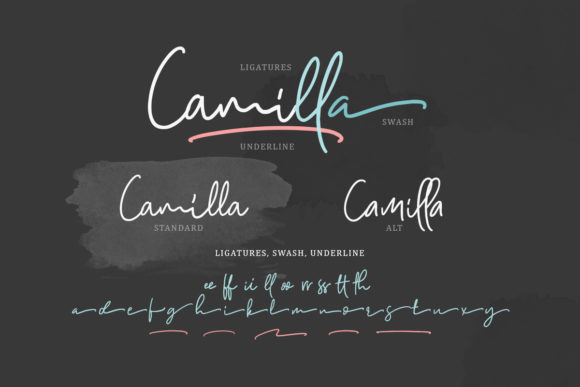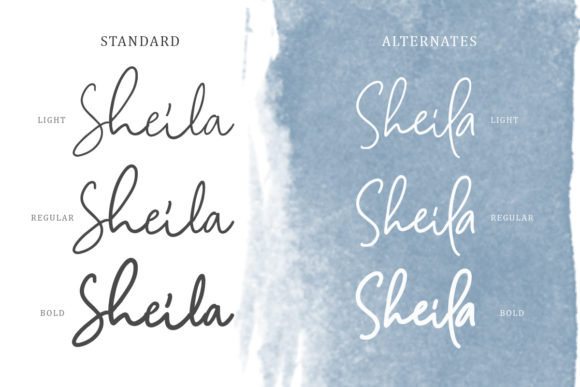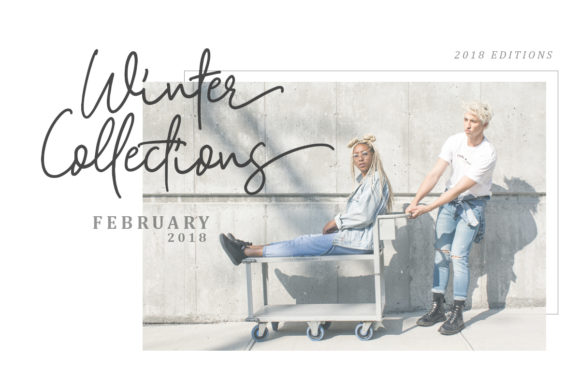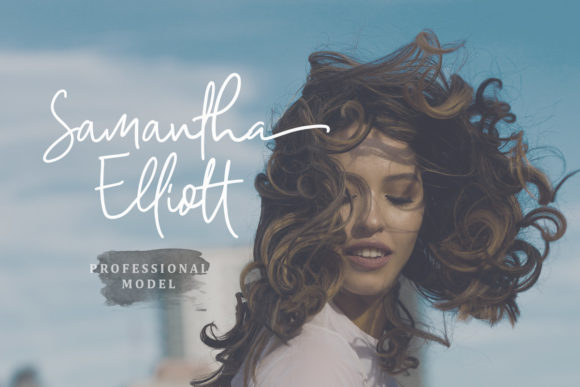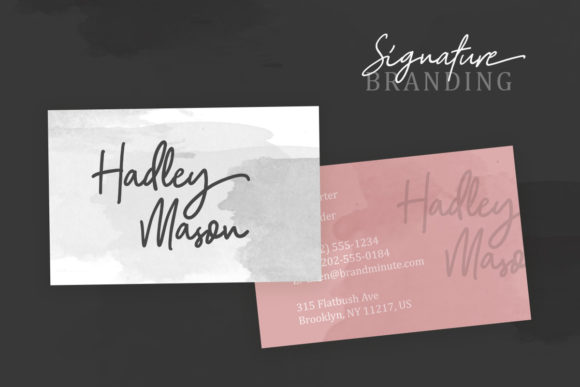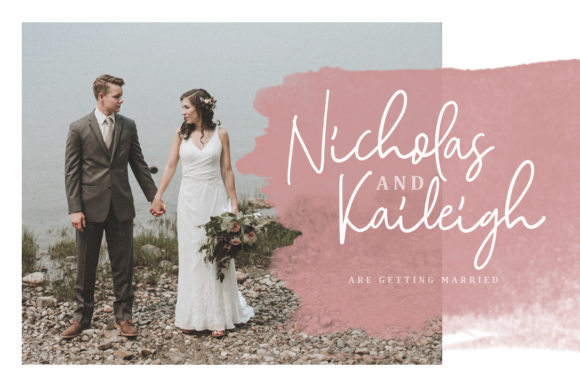
Introducing the Camilla Family Font: Elevate Your Designs with Modern Script Elegance
In the world of typography, a font can make all the difference in the success of a design project. For designers and crafters seeking a modern script family that exudes elegance and versatility, look no further than the Camilla Family Font. This stunning font family consists of six styles that can be combined perfectly, making it an ideal choice for a wide range of applications, from logos and branding to fashion designs, quotes, and more.
The Camilla Family Font: A Modern Script Family with Endless Possibilities
The Camilla Family Font is a modern script family designed to meet the needs of contemporary designers. Its six styles can be mixed and matched to create visually appealing combinations that add a touch of sophistication to any design. Whether you’re working on a logo, brochure, or social media graphics, this font family provides the perfect blend of elegance and flexibility.
Key Features of the Camilla Family Font
- 6 Styles: The Camilla Family Font includes six distinct styles that can be combined to create unique and captivating designs.
- Modern Script Elegance: This font family boasts a modern script aesthetic that adds a touch of sophistication to any design.
- Versatile: The Camilla Family Font can be used for a wide range of applications, including logos, branding, fashion designs, quotes, and more.
- Perfect Combinations: The six styles within the font family are designed to be combined perfectly, making it easy to create stunning designs.
Applications of the Camilla Family Font
The Camilla Family Font is an incredibly versatile font family that can be used in various design projects. Here are some of the many applications where this font family shines:
- Logos and Branding: Create a lasting impression with a custom logo or brand identity that incorporates the elegant and modern script of the Camilla Family Font.
- Fashion Designs: Add a touch of glamour to your fashion designs, whether it’s for clothing, accessories, or editorials.
- Quotes and Typography: Use the Camilla Family Font to create visually stunning quotes, posters, and typographic designs that showcase your message.
- Digital and Print Media: The Camilla Family Font is perfect for various digital and print media applications, including brochures, flyers, social media graphics, and more.
Why Choose the Camilla Family Font?
With so many font options available, why choose the Camilla Family Font? Here are a few compelling reasons:
- Unique and Modern: The Camilla Family Font offers a fresh and modern take on script typography, setting it apart from more traditional font families.
- Elegant and Sophisticated: This font family exudes elegance and sophistication, making it perfect for high-end designs and luxury brands.
- Versatile and Flexible: The six styles within the Camilla Family Font can be combined in various ways, providing endless possibilities for creative expression.
In conclusion, the Camilla Family Font is an exceptional modern script family that offers designers and crafters a versatile and elegant solution for their design needs. With its six perfectly combinable styles, this font family is ideal for a wide range of applications, from logos and branding to fashion designs and quotes. Elevate your designs with the Camilla Family Font and experience the perfect blend of modern elegance and creative flexibility.